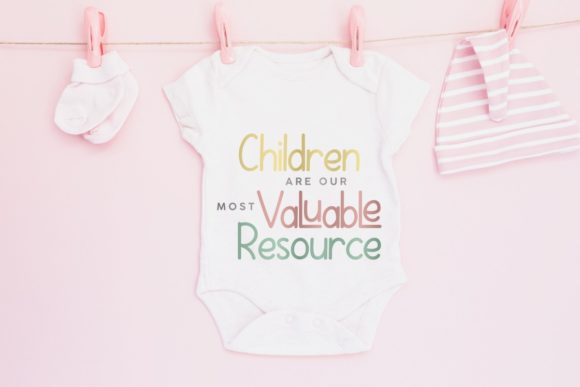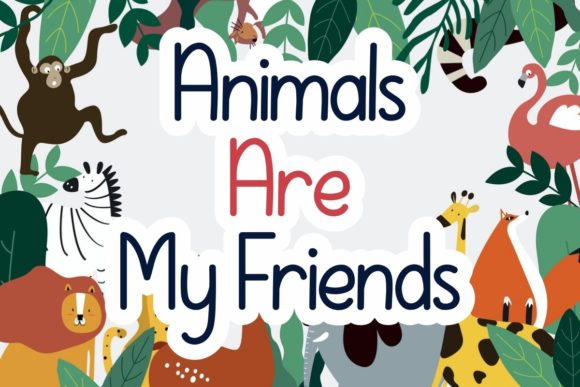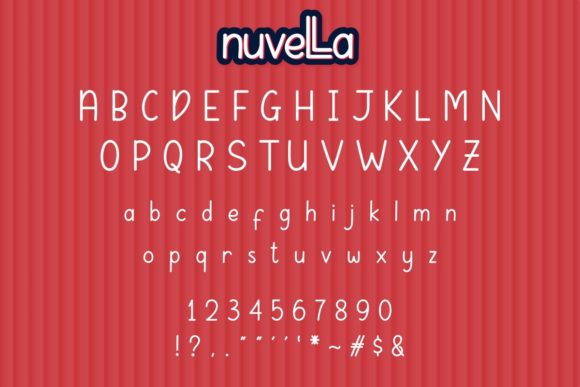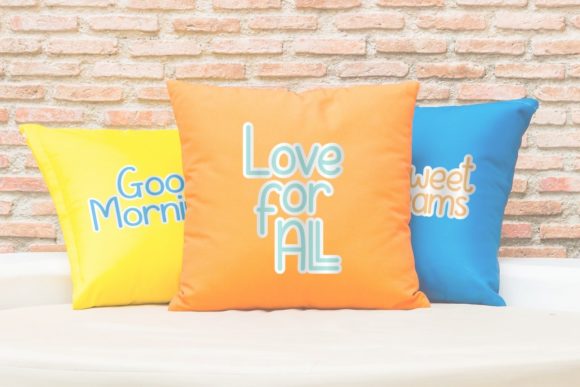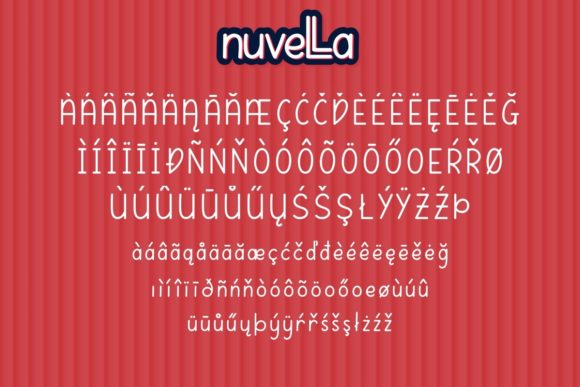
Introduction to Nuvella Font
Remember the moment when you were brainstorming ideas for your next creative project, and the perfect font just slipped away from you? It’s frustrating, but it happens to the best of us. The right font can elevate your design and make it truly stand out. This is where the Nuvella Font comes in – a minimal and neat sans serif font that’s perfect for a wide range of creative projects.
As a valuable design resource, the Nuvella Font is a high-quality addition to any designer’s toolkit. Its clean and modern aesthetic makes it an excellent choice for a variety of applications, from digital designs to print materials. And the best part? It’s free to download, making it an accessible resource for designers of all levels.
Key Features of Nuvella Font
- High-quality font with a transparent background, making it perfect for creative projects that require a subtle yet elegant look.
- Unique, modern design with a sophisticated feel, ideal for use in logos, branding, and other high-end creative projects.
- Includes a range of weights and styles, providing designers with flexibility and versatility in their creative projects.
- Designed to be highly legible, even at small font sizes, making it perfect for use in digital applications, such as websites and mobile apps.
Honest Review: Nuvella Font
I recently stumbled upon the Nuvella Font, and I must say, it’s been a great addition to my design arsenal. As a designer, I’m always on the lookout for high-quality fonts that can elevate my creative projects.
- ✨ High-quality design: The Nuvella Font boasts beautiful, intricate details that make it perfect for a variety of design applications.
- ✨ Transparent background: The font’s transparent background makes it easy to overlay on any image or design, giving me more flexibility in my creative projects.
- ⚠️ Limited font weights: While the font is beautiful, it would be great to have more font weights available to give designers more options.
- ⚠️ Not ideal for large text: Due to its intricate details, the font may not be the best choice for large text or headings.
Overall, I’m impressed with the Nuvella Font, and I would definitely recommend it to designers who are looking for a high-quality, free download font. It’s a great resource to have in your design toolkit, especially for creative projects that require a touch of elegance and sophistication.
The Nuvella Font is ideal for various design projects, including logos, business cards, and marketing materials. It’s also a great resource for creating high-quality digital products, such as ebooks and presentations.